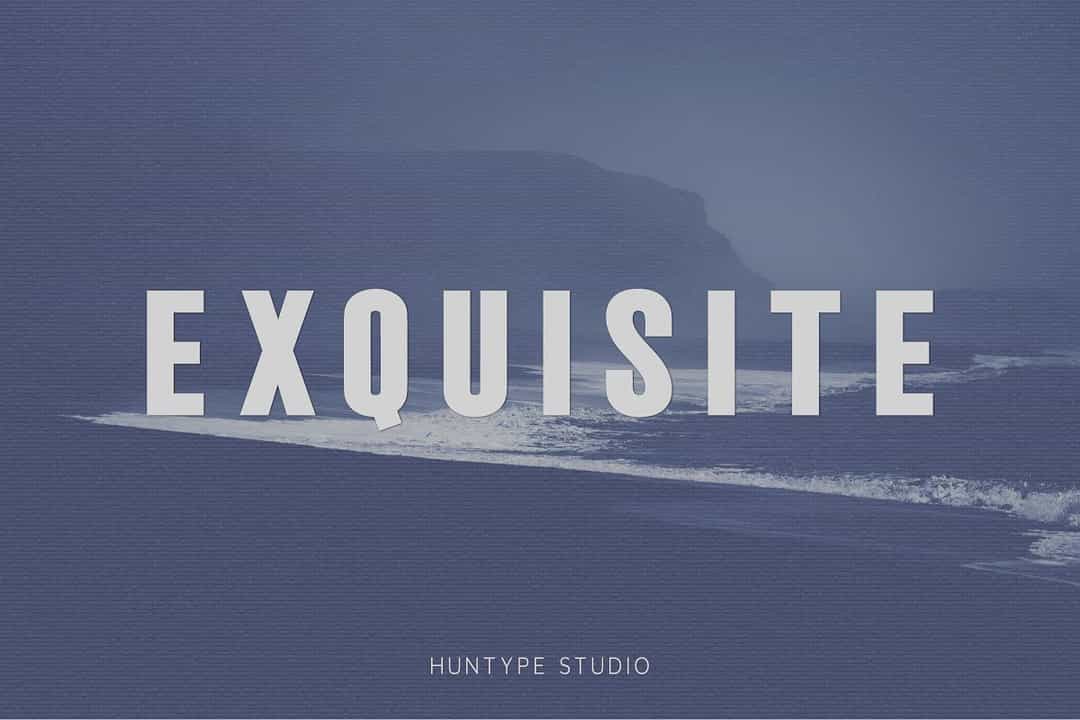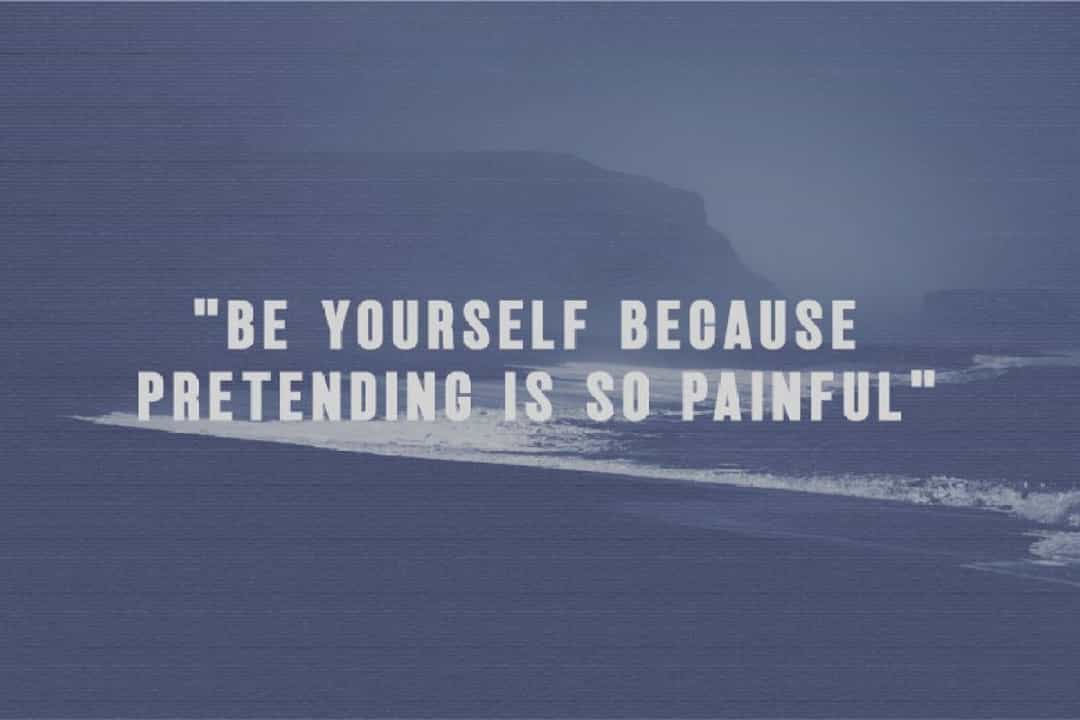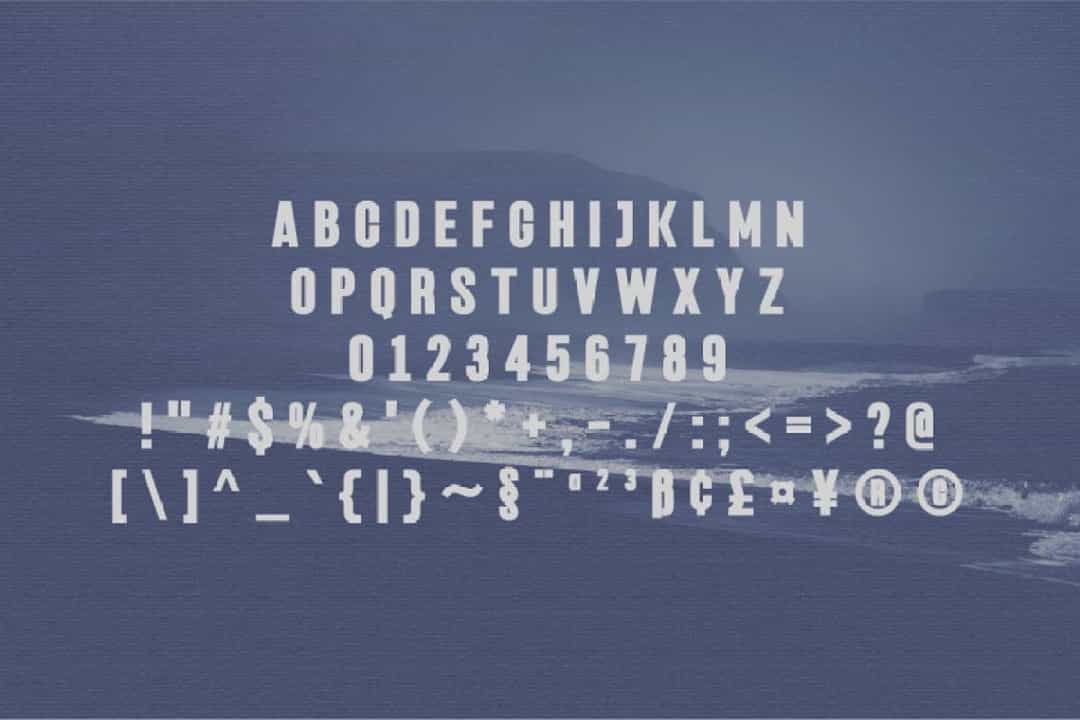
Discover Exquisite Font, part of the Sans Serif collection—a versatile and unique font perfect for adding a personal touch to your projects. Download it for free and enjoy crafting designs with style, from invitations to social media posts. This font is available exclusively for personal use, giving you the freedom to create without limits. Unlock your creativity with Exquisite Font today!
Exquisite is an all-caps sans serif font with smooth and clean lines that’s versatile enough for use in nearly any setting – such as branding, logo design and web headers. With its clean look and subtle contrast details, Exquisite makes an impressionful first impression for branding, logos or web-related headers.